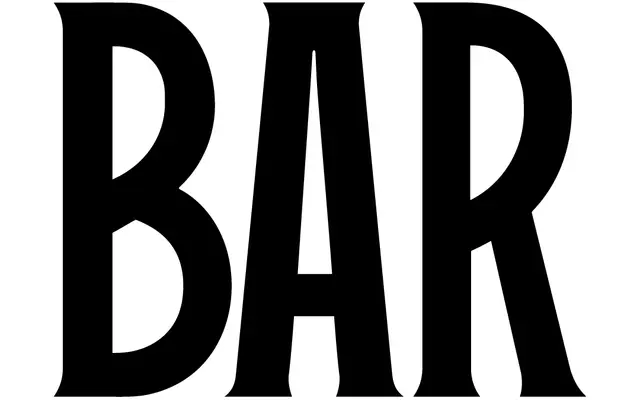
Trusty Serif Tall
A tall, upright bracketed serif designed for confident display use, part of a trio of Trusty Serif cuts.
One of three fonts in the Trusty Serif family, the Tall variant is characterised by upright proportions and subtle bracketed serifs intended to aid legibility even across curved paths or in tight spaces. The designer describes it as having a warm yet direct quality, suited to headers and display settings where legibility and tone must work together. It sits within a utilitarian family designed for dependable, versatile use.
Described as having subtle bracketed serifs with upright, confident proportions; the tall variant suggests extended x-height or elongated letterforms for display use.